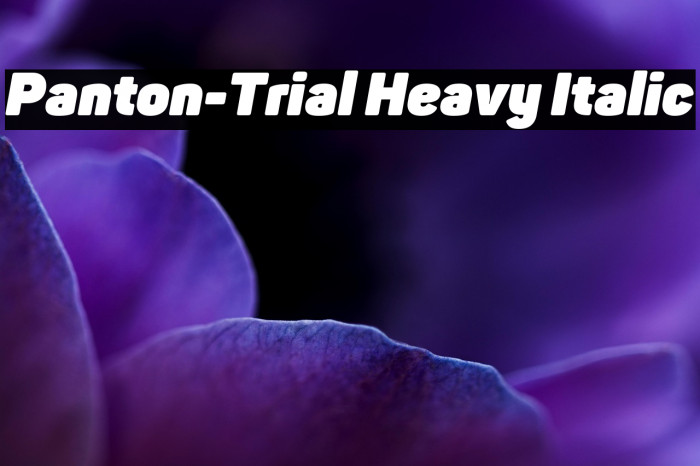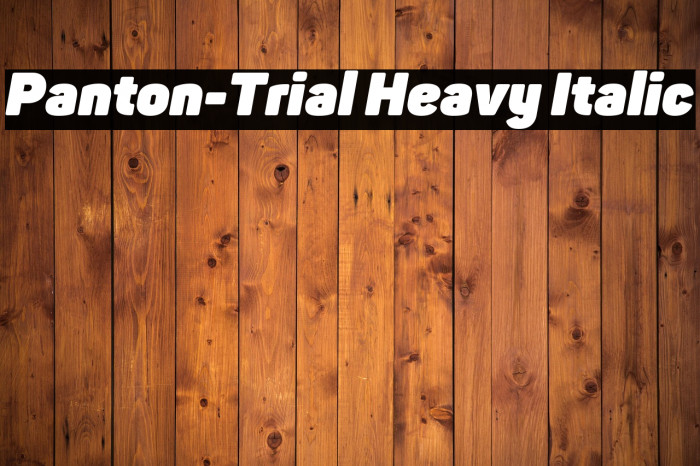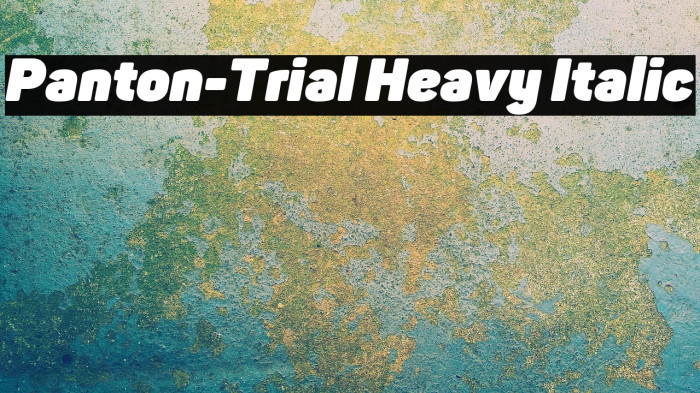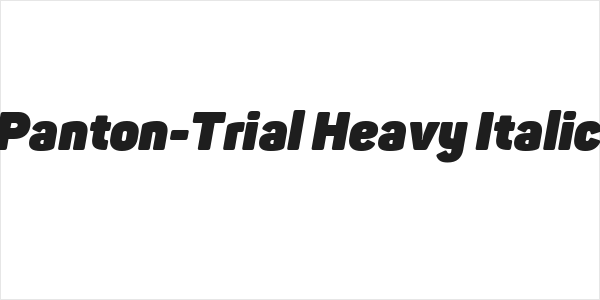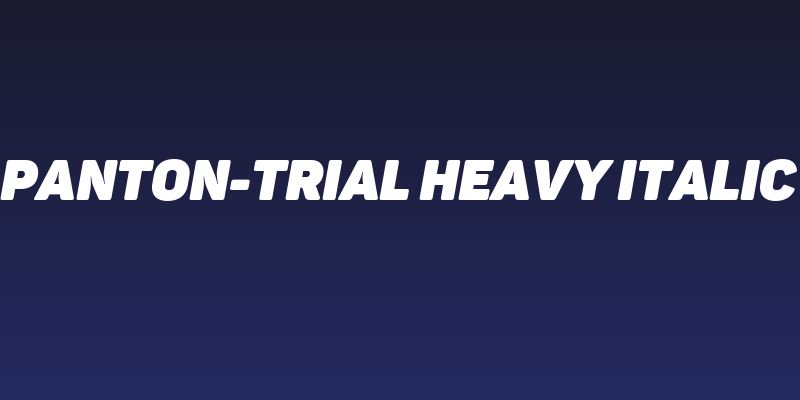
Panton-Trial Heavy Italic Font
Panton-Trial Heavy Italic Description
This font features a bold and italicized style, characterized by its heavy weight and dynamic slant. The letters are robust and impactful, with a modern and assertive appearance. The uppercase and lowercase characters maintain a consistent thickness, providing a uniform look across the alphabet. The numerals are equally bold, ensuring they stand out in any context. Special characters are designed with the same attention to detail, making them suitable for a variety of uses. The overall design is clean and contemporary, making it ideal for projects that require a strong visual presence.
| Proposed Projects | Ideal for branding, advertising, headlines, and any design needing a strong, impactful font. |